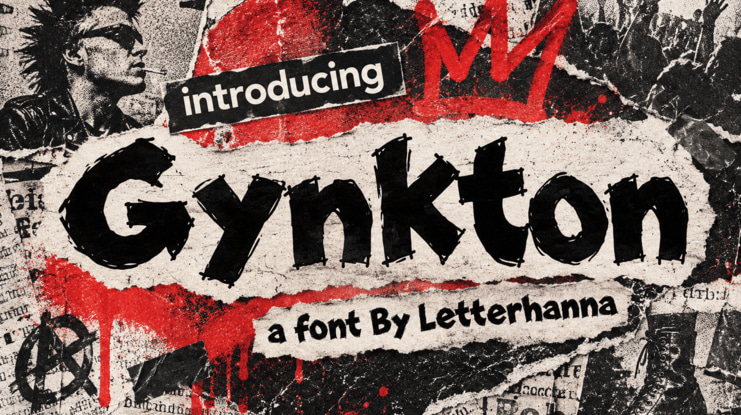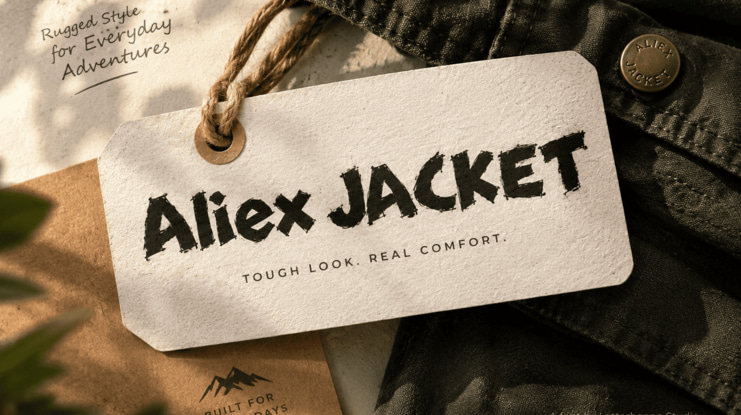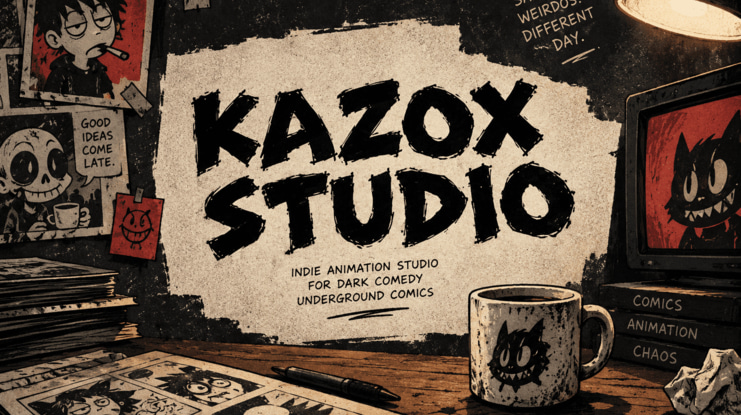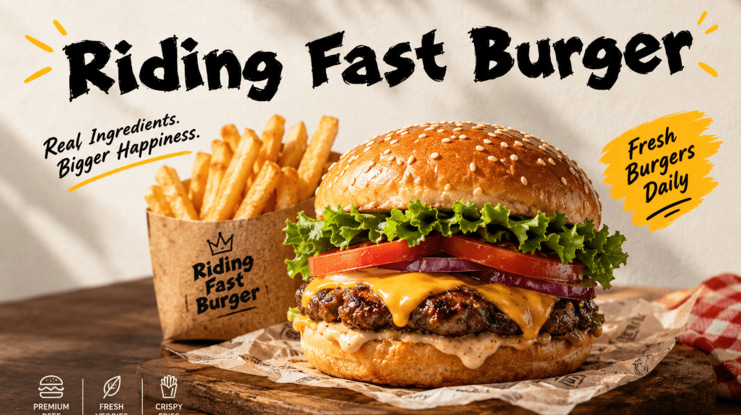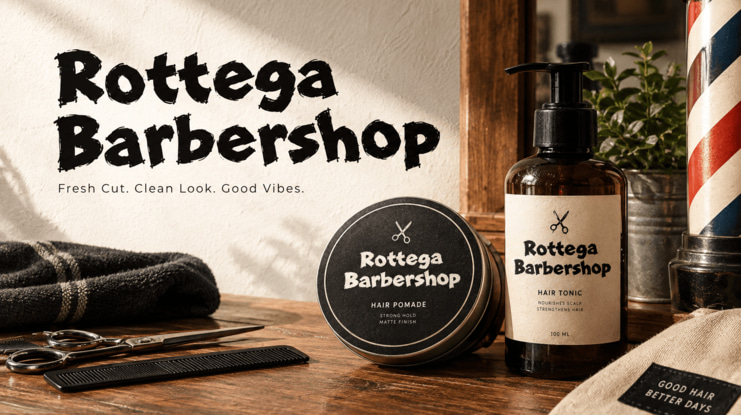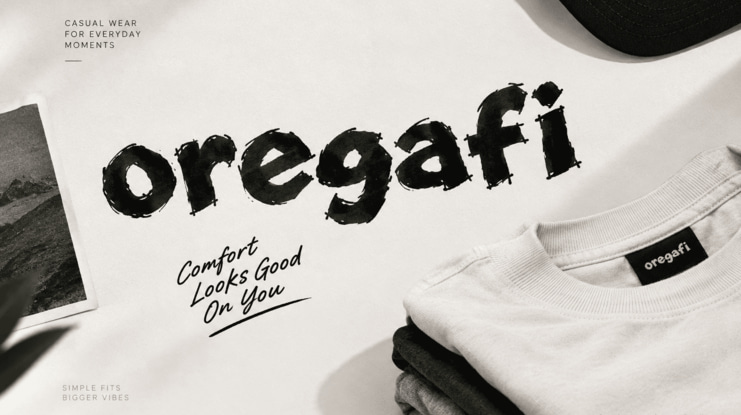
Most fonts play it safe. Gynkton doesn't. This edgy font was built for brands that refuse to blend into the noise — rough-edged, hand-inked, and loud enough to stop a scroll in its tracks.
What Makes Gynkton an Edgy Font?
Every letterform in Gynkton looks like it was scratched onto a wall at 2 AM. The doubled ink-line strokes, jagged terminals, and uneven weight give it that authentic urban font texture — nothing feels templated or overly polished. It's imperfection used as a design weapon.
A Font Rooted in Street Art
Gynkton draws its DNA from graffiti tags, punk flyers, and torn poster walls. If you love the raw energy of street art, this typeface translates that same rebellious spirit into a usable, professional font file.
Where This Rough Font Works Best
Streetwear and apparel branding
Gig posters and music merch
Skate and youth culture brands
Comics, zines, and indie animation studios
Bold social media headlines and video captions
The Vibe: Confident, Unfiltered, Human
Gynkton isn't trying to look "clean." It's trying to look real — like a human hand made it in a hurry, fueled by attitude. That's exactly what makes it memorable in a sea of generic sans-serifs.
Ready to Give Your Brand an Edge?